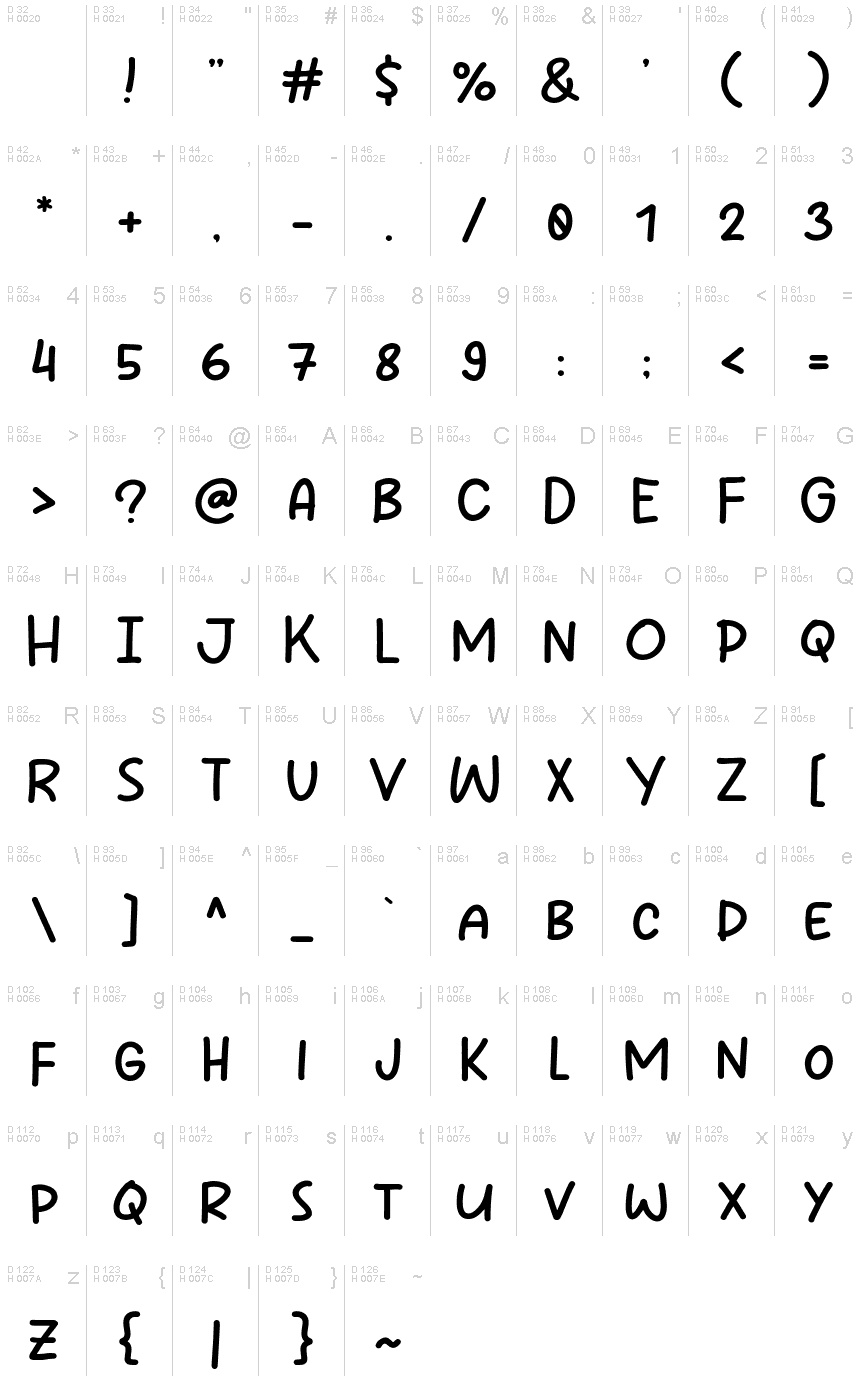
Chickenic
Chickenic is a bold and playful display font from Khurasan. Its cartoon style gives any project a unique and whimsical look. Perfect for logo design, game development, children's books, or any project needing a lighthearted vibe.